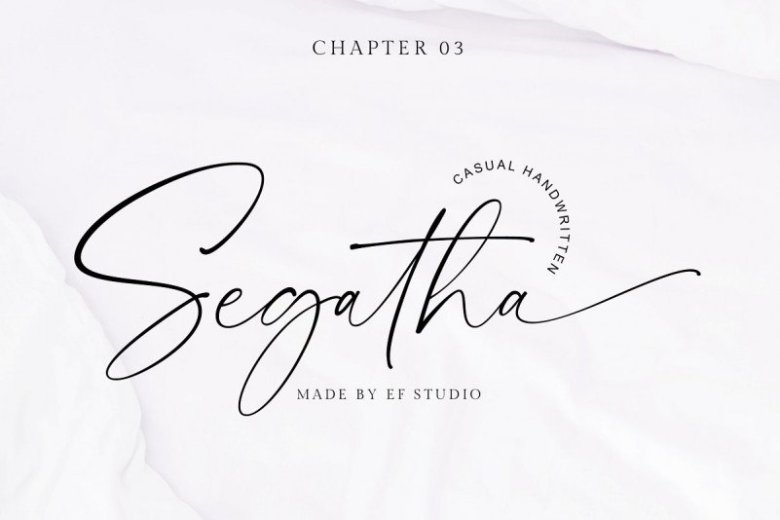
Segatha Handwritten Font
Thank you for looking Segatha Font. This is a casual script, full of personality and curves. This font was designed using quick strokes to create natural handwritten, to give the font a natural look in a digital world.
Segatha Handwritten is a beautiful casual handwritten font with beginning and ending lowercase swashes, 94 ligatures that add more beautiful and aesthetic fonts to perfect your extraordinary project. very suitable for branding, invitations, watermarks, photography, and more